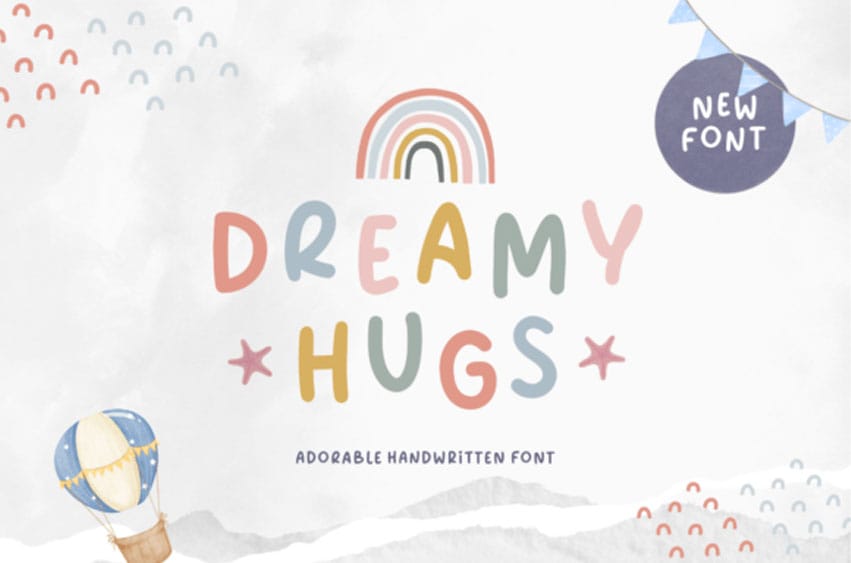
Dreamy Hugs Font Captivate your audience with the delightful essence of Dreamy Hugs! This delightful handwritten font is an infusion of warmth and charm, perfect for adding a touch of personal appeal to your creations. Dreamy Hugs is characterized by its gentle, rounded strokes and whimsically crafted characters, emitting a pleasant aura of joyfulness.
It’s an excellent choice for designing children’s branding content, crafting heart-warming greeting cards, compiling inspirational quotes, or beautifying baby product line-ups. Embrace a fun-filled, cheerful vibe through your designs with Dreamy Hugs, letting it transport your imagination to a realm of temerarious delight and ever-glistening happiness!